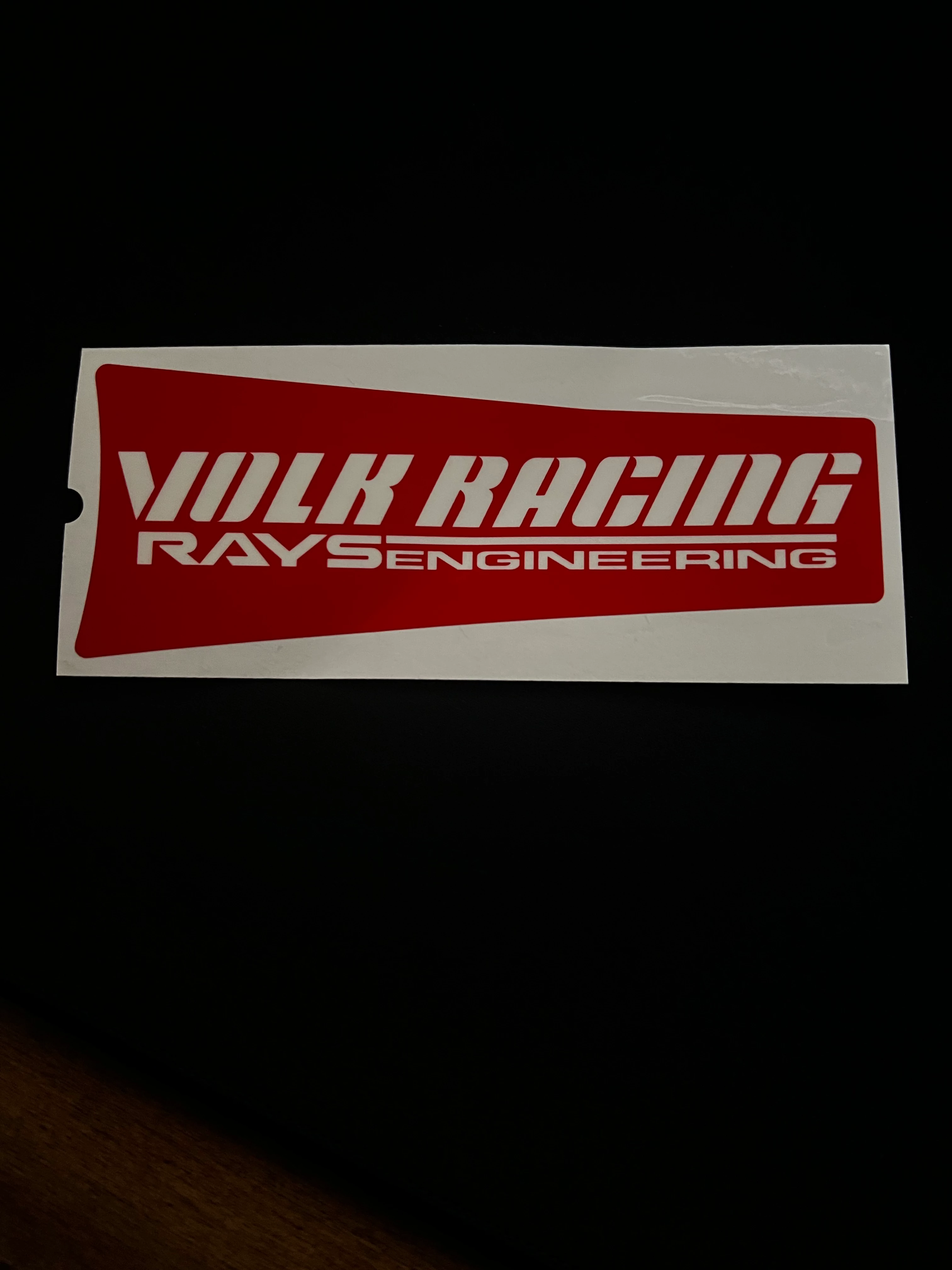
Hello, all. I've been busting my brain the last few days about this - any idea what font this is?
The Volk Racing logo is a classic example of hand-drawn text.
That is: letterforms physically drawn using rulers, french curves, compasses, and stencils. Either that, or using digital equivalents like the tools found in Adobe Illustrator. My guess is the logo was probably first drawn by hand, and then later converted into a digital version.
Notice how many of the shapes and curves in the logo letterforms are consistent: they’re simply small variations on each other. Although a typeface could have been the original inspiration, many logos like this are custom-made.
Perhaps the only letters in the logo that are directly based upon a typeface are in the word ‘ENGINEERING’. The typeface in question: Alessandro Butti and Aldo Novarese’s Microgramma.
Microgramma and a related typeface called Eurostile were released by the Italian typefoundry Nebiolo between 1950 and 1962. Microgramma is an extended-width, capitals-only design. Eurostile is a more extensive version of Microgramma: complete with uppercase and lowercase alphabets, and available in a wide range of weights and widths. Both are popular typefaces, and have been regularly used in modernist and futurist designs over the years.
If you need to rebuild the logo from scratch for the company, then perhaps the best place to do it would be in Adobe Illustrator, using the Pen and related tools to create clean letterform outlines. Then add the ‘ENGINEERING’ text set in Microgramma or Eurostile Extended, and you’re largely done.
If you’re building a logo for someone else that derives its letterforms from the Volk Racing logo, please be aware of the potential legal consequences. Some companies actively protect their trademarks; designing something that looks too much like the Volk Racing logo may become a problem in the future.
Using the ‘VOLK RACING’ letterforms as an inspirational starting point shouldn’t necessarily be a problem, however. Just as long as any new design differs enough from the Volk Racing logo that one can’t be mistaken for the other. In American law: you can’t copyright or patent typefaces and the shape of letterforms; you can trademark names and logo designs.
Based on the inconsistencies in the letterforms, my guess is this a custom set of letters creating a trademark/logo and not a font at all (yes, we used to do this in the olden days). Volk Racing is a logo trademark that has been around for over 30 years.